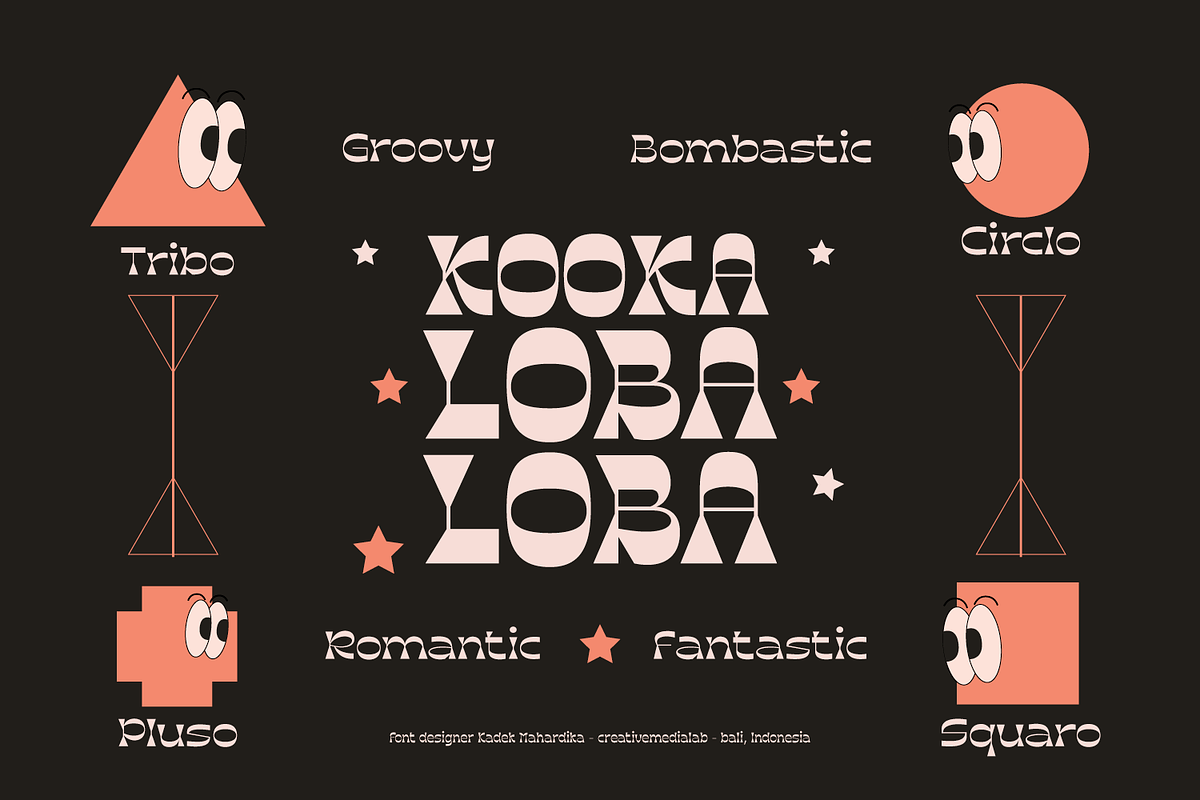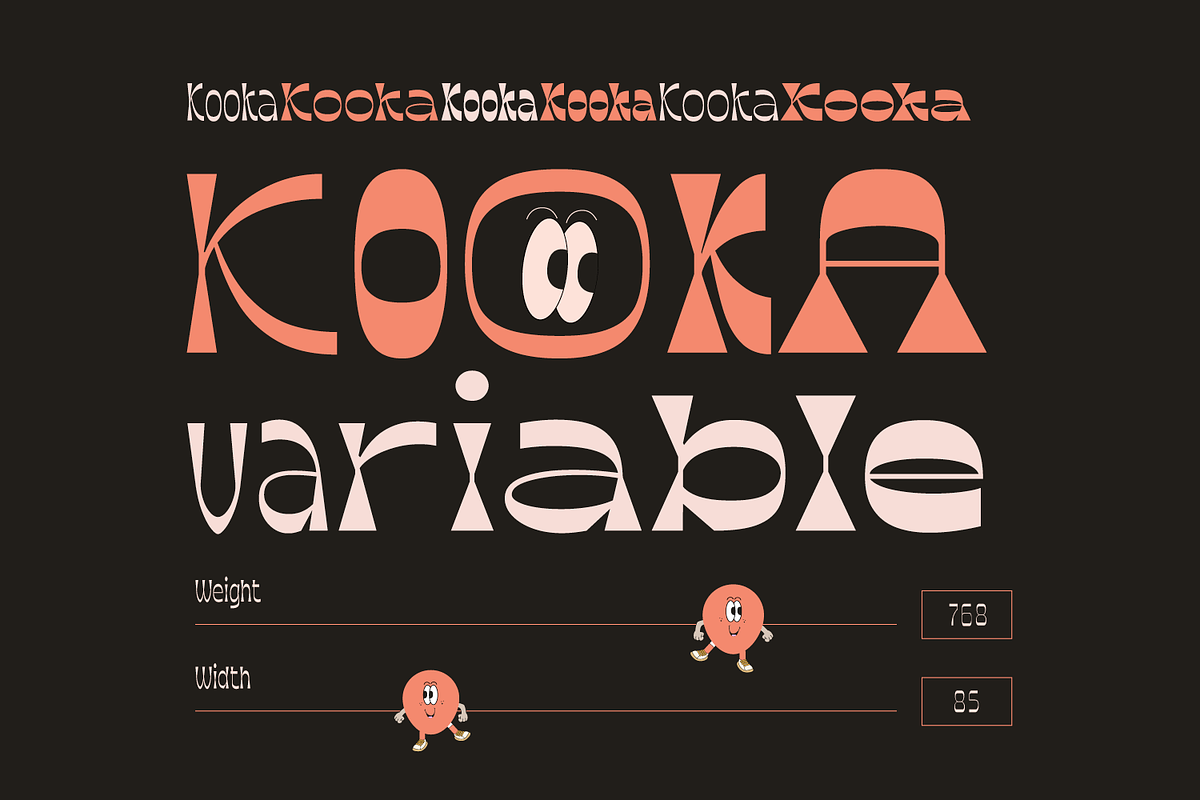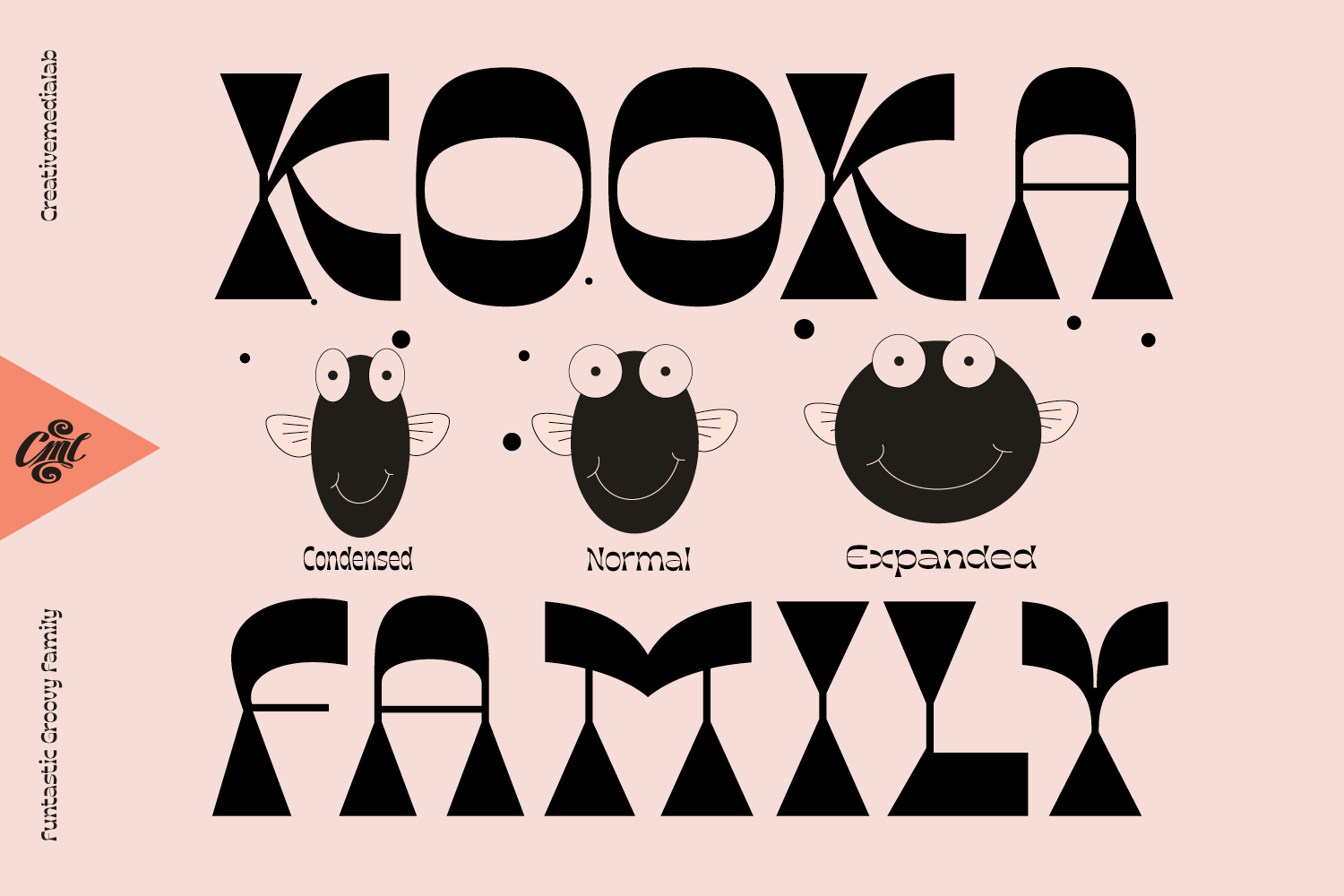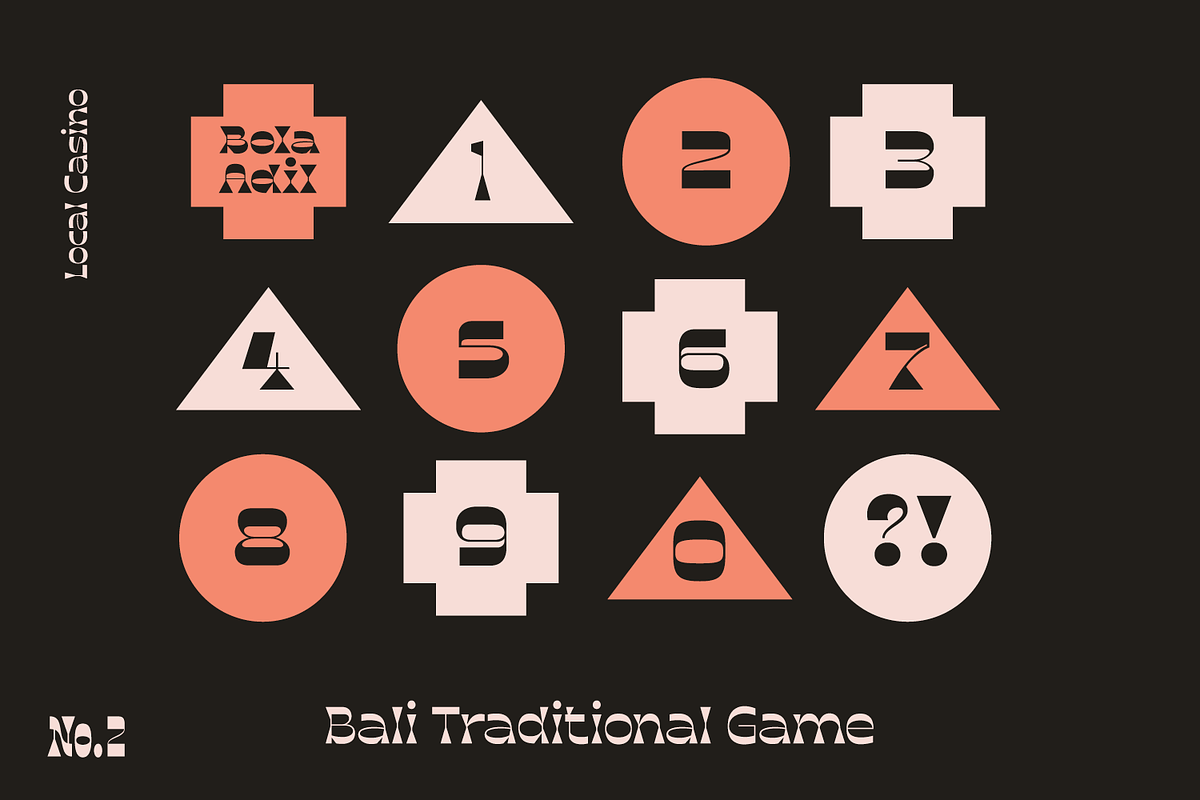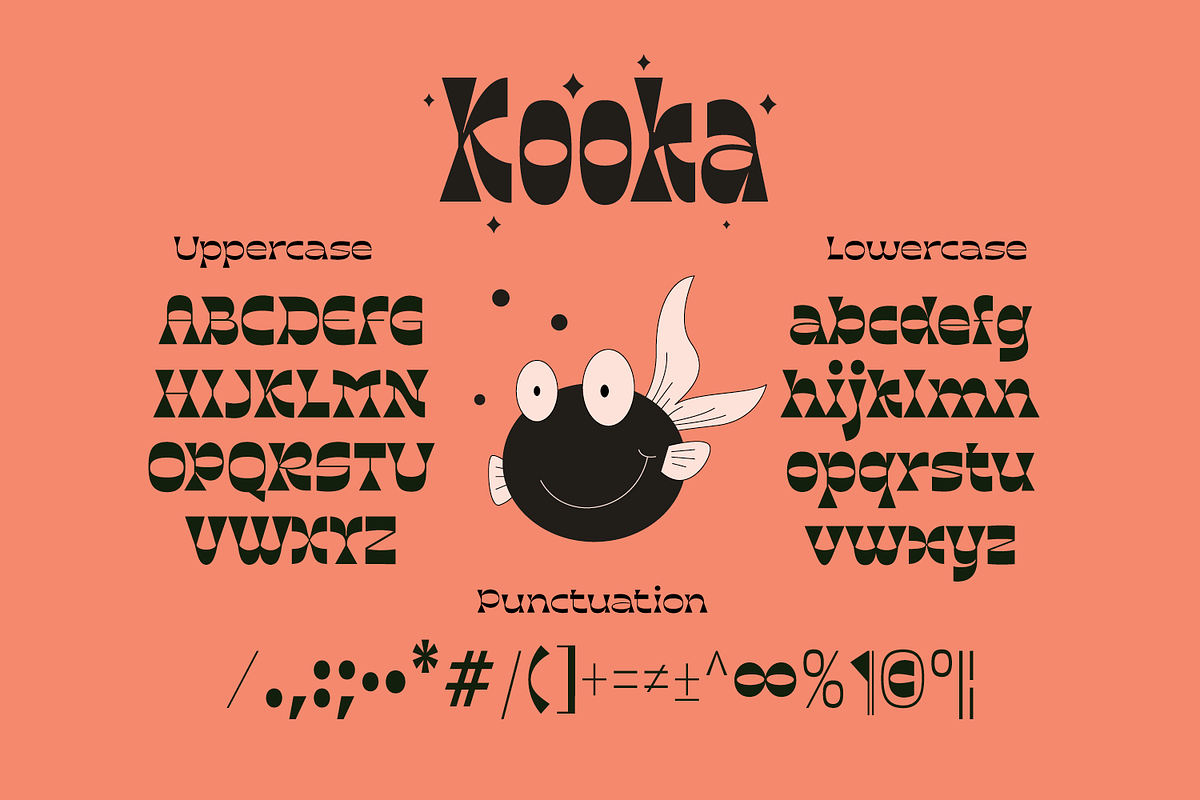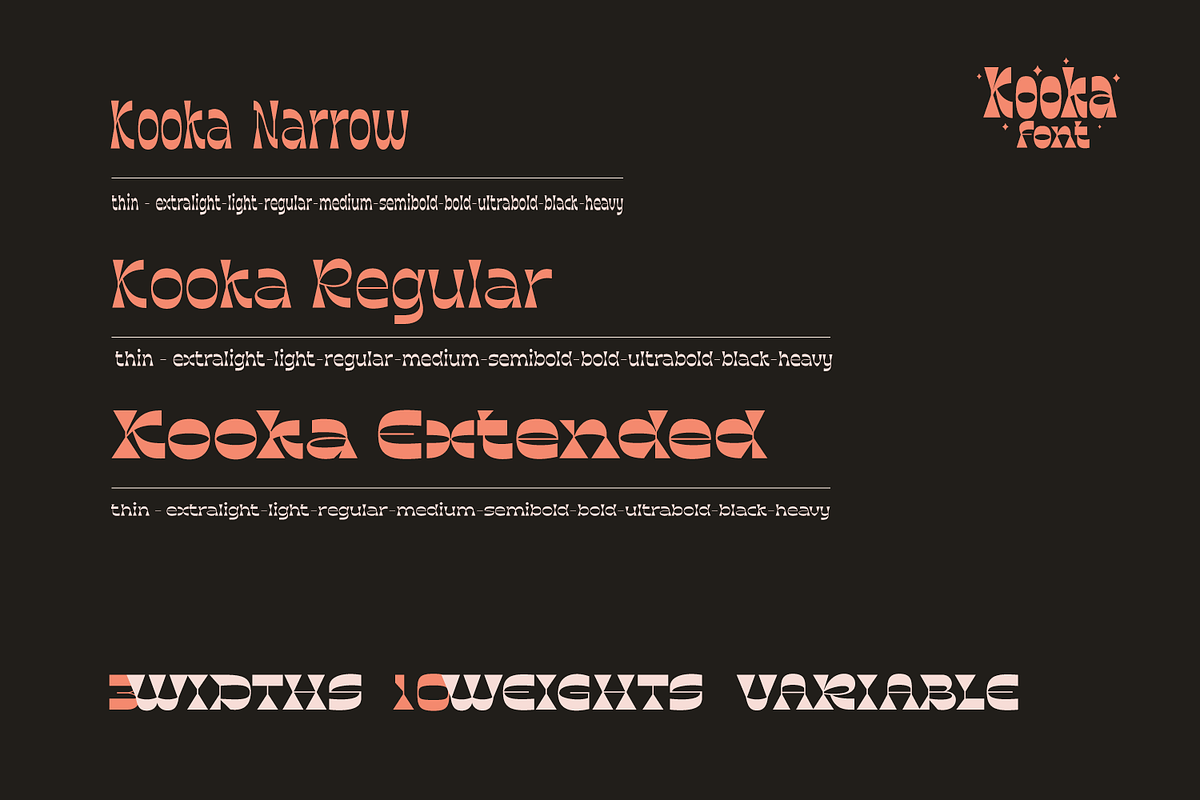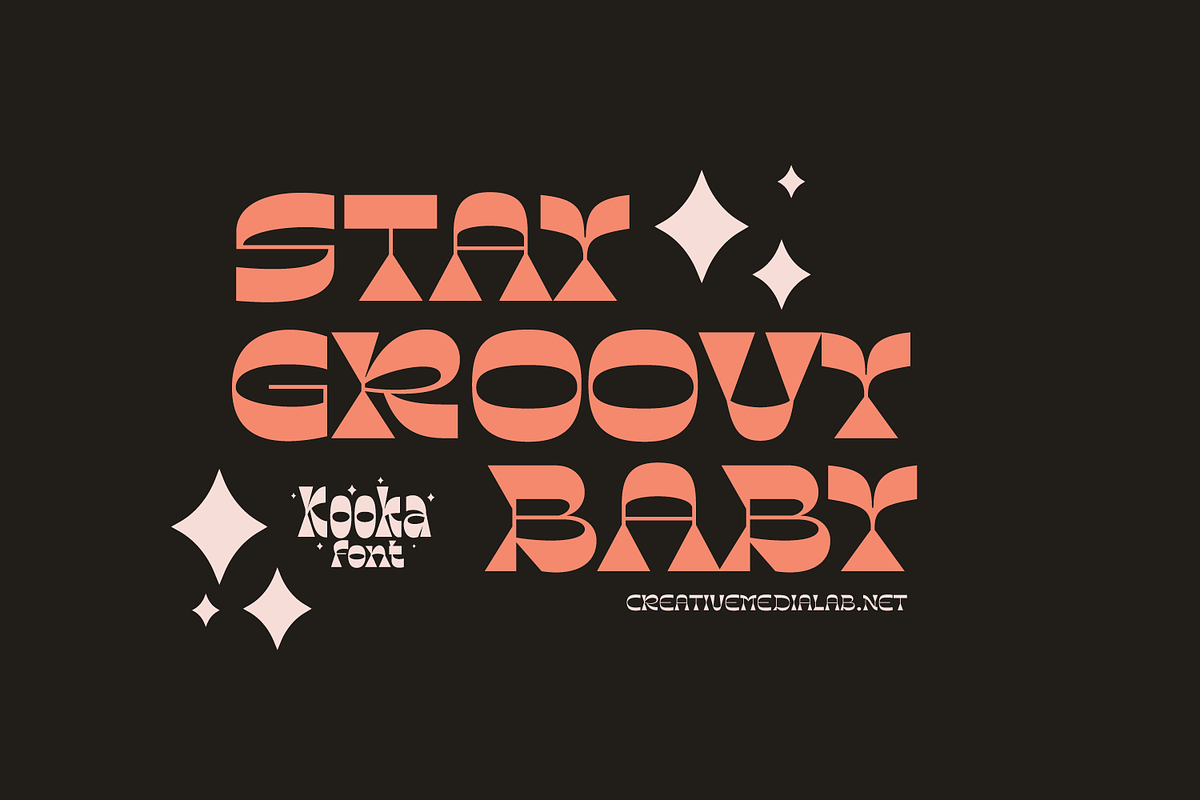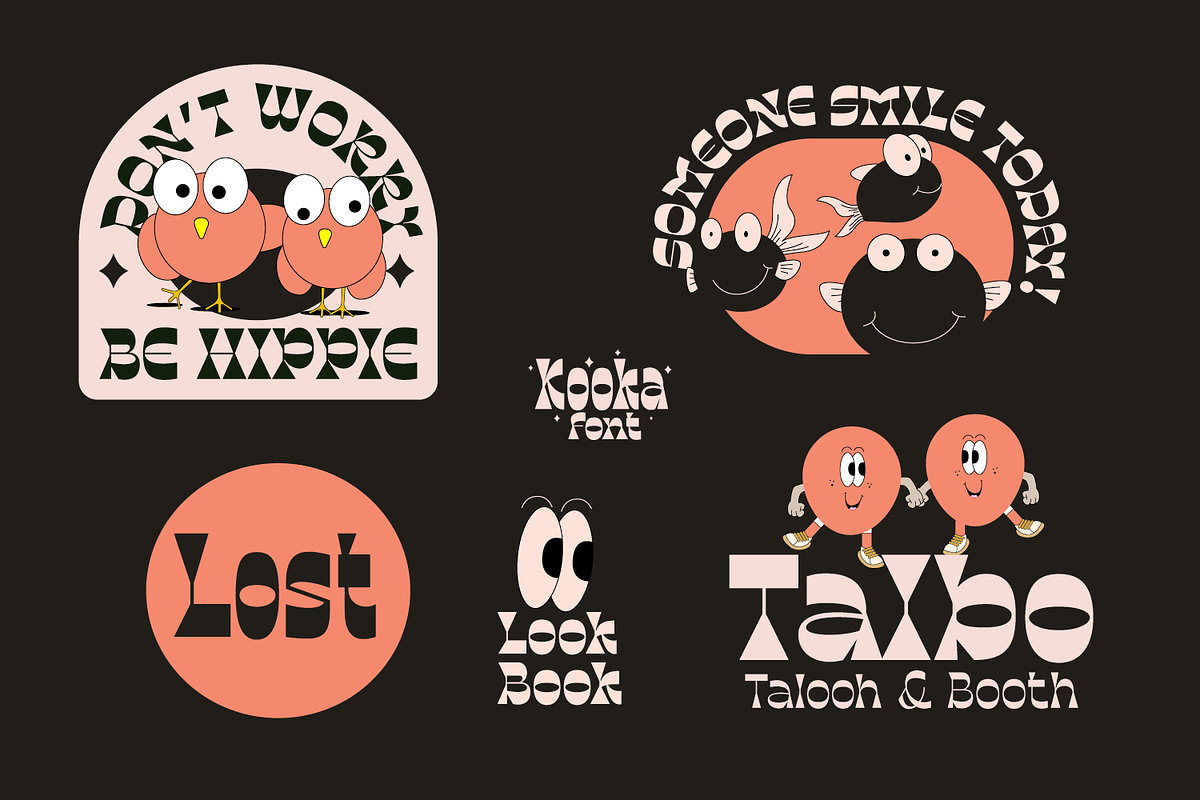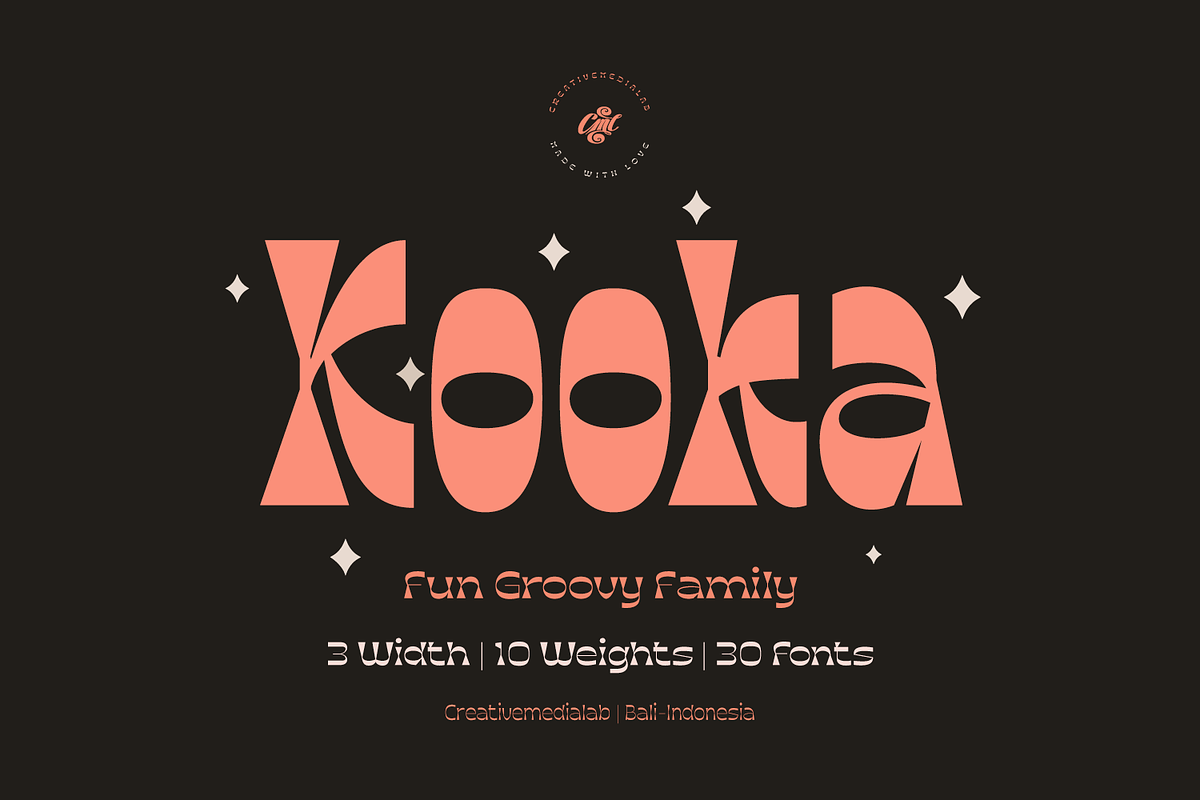
Kooka Font - Fun Groovy family
Introducing Kooka, a Stylish and fun groovy family.
Kooka inspired by groovy retro style, this unique and Cool vintage display family is perfect to combine with any sans serif font.
If you're looking for a unique and modern vintage font for your next project, Kooka is the right choice! Thanks to its unique characters.
Kooka also includes a Variable style as well as multilingual support, numbers, and currency symbols.